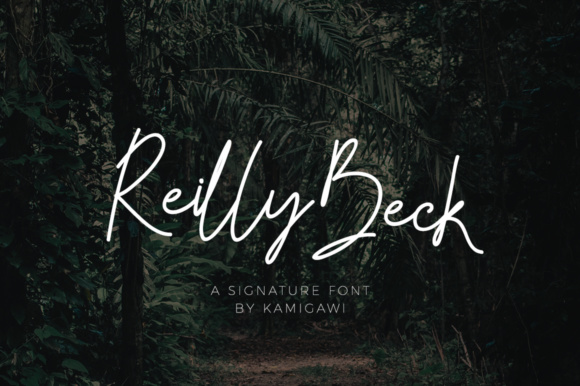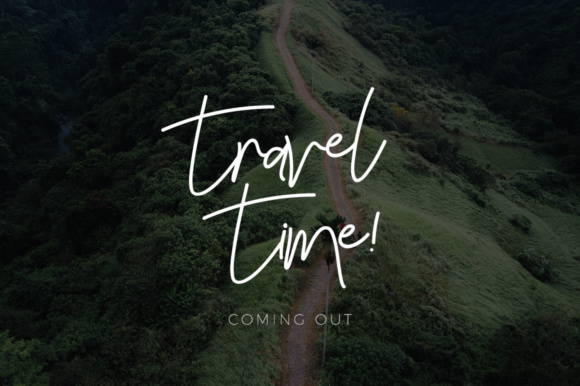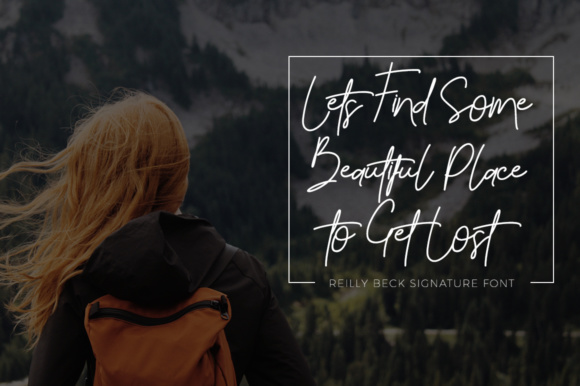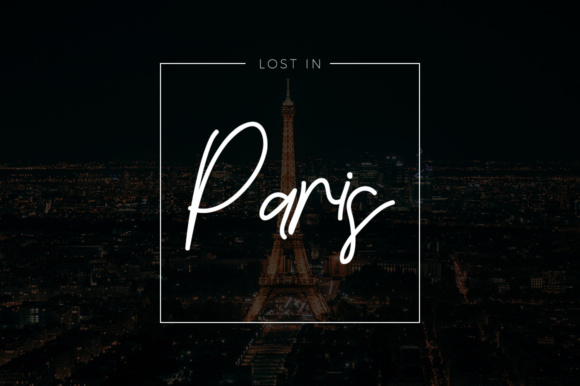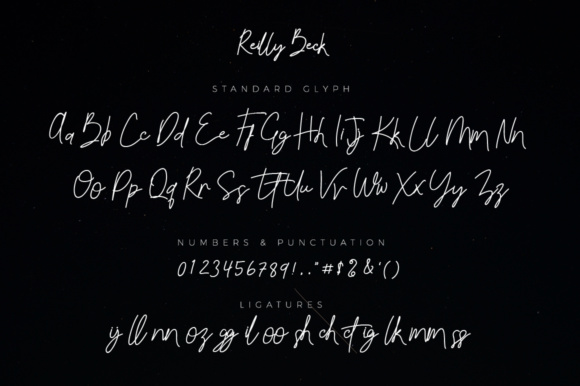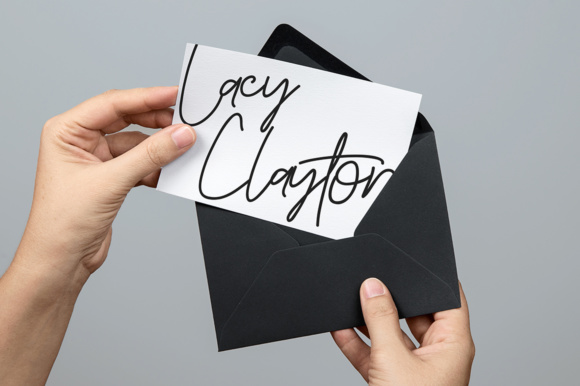
Reilly Beck Font
About Reilly Beck Font
Give your designs an authentic handcrafted feel. Reilly Beck Signature is an exclusive signature typeface perfectly suited to headlines in fashionable and trendy works; this monoline font will keep your work looking sleek and right on trend.